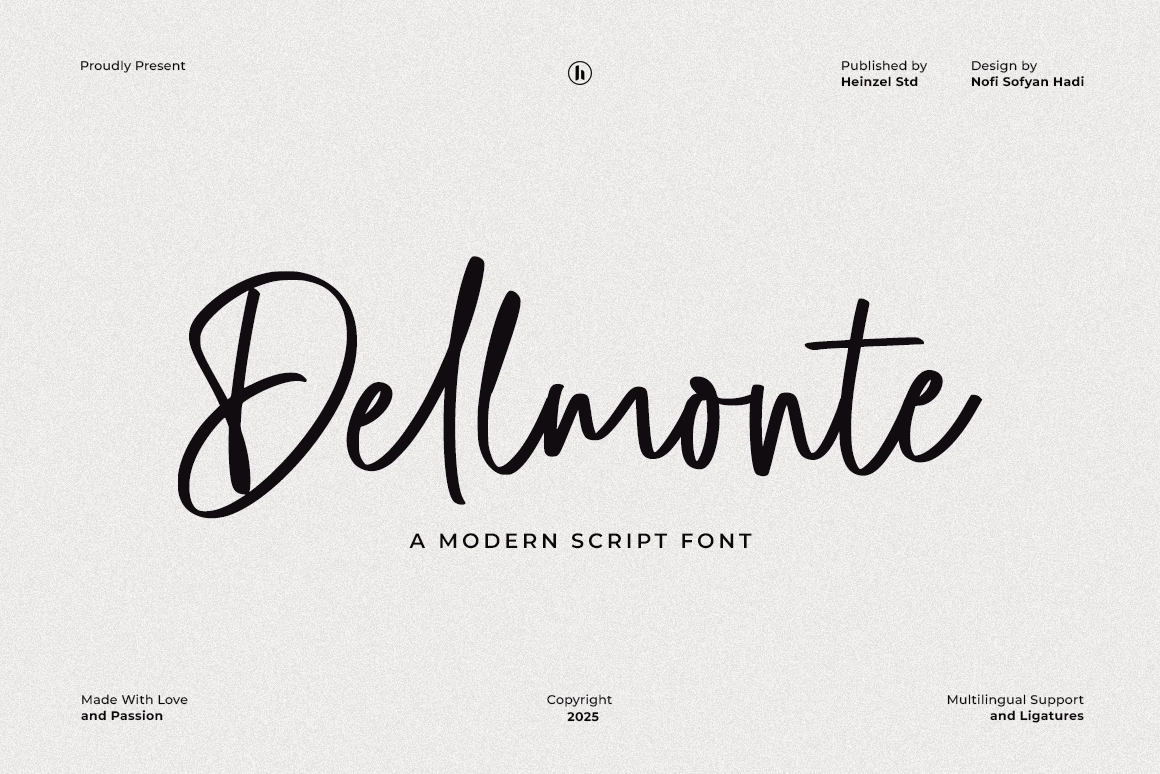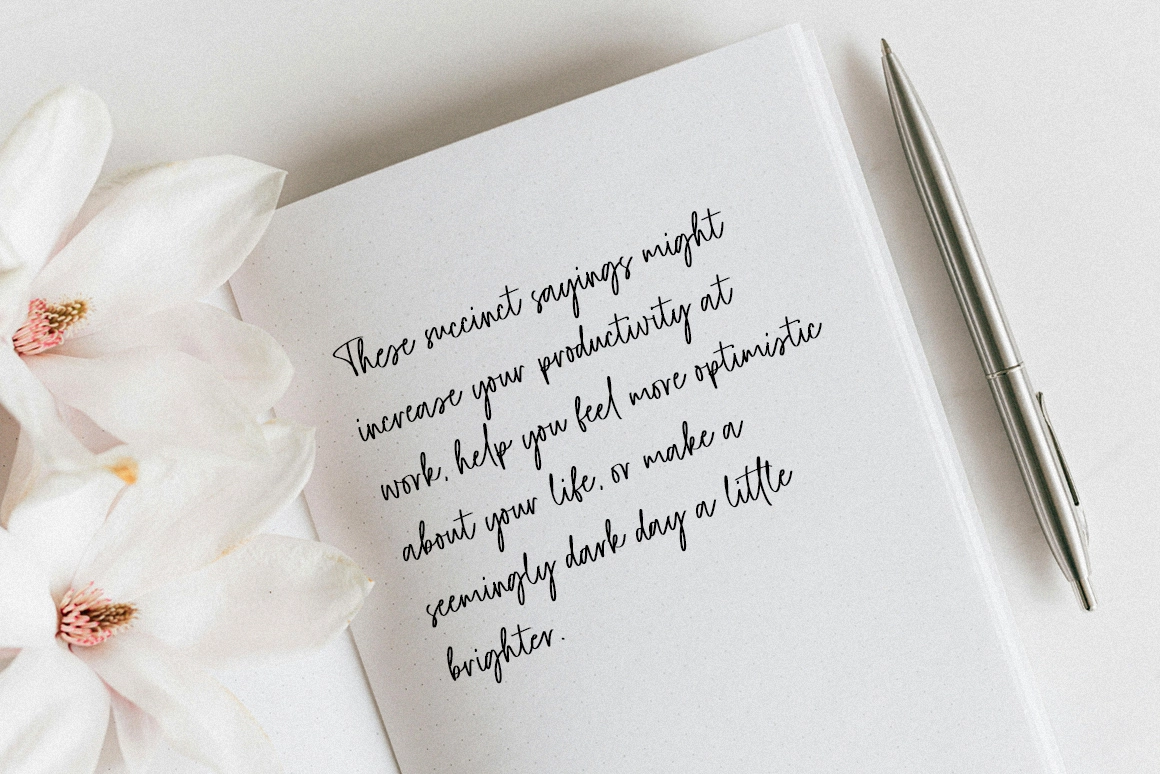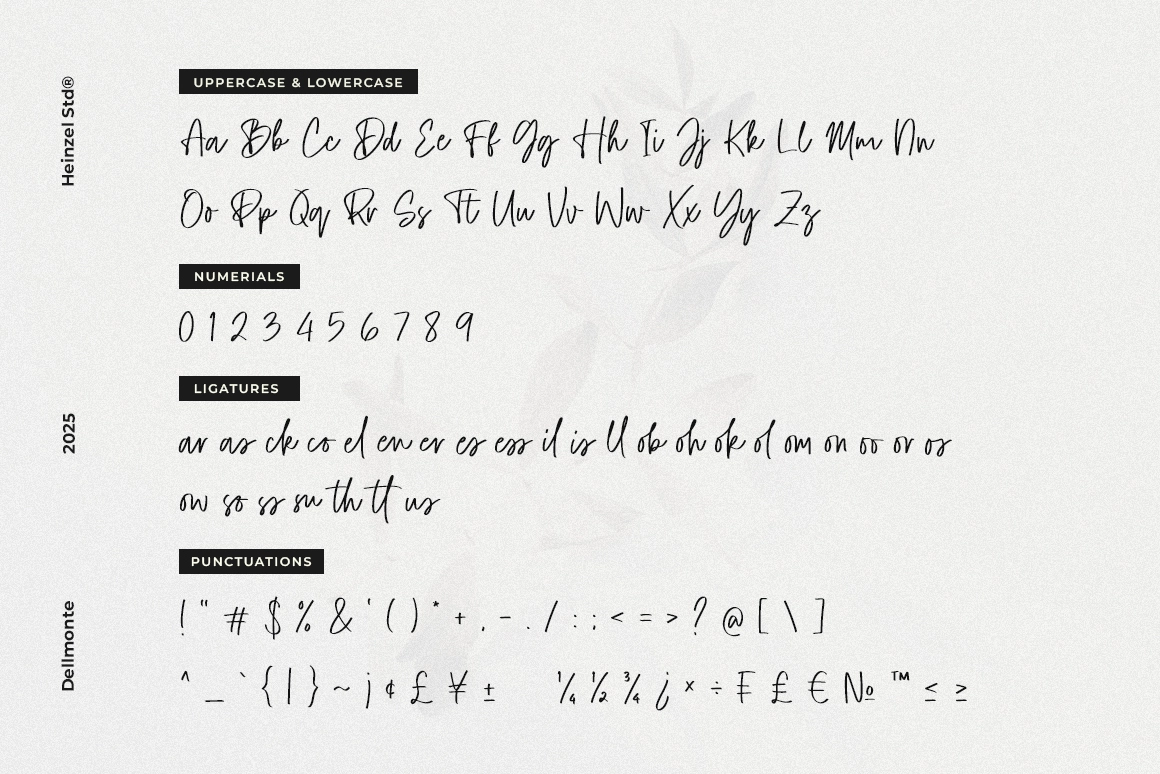
Dellmonte - Handwritten Script Font
Dellmonte runs on the rhythm of a confident pen — loose enough to read as genuinely handwritten, controlled enough to hold a label or logotype together. The letterforms draw from casual connected script, with varying stroke weight, natural baseline bounce, and ink-like terminals that taper into clean exits. An extended ligature set ties common letter pairs into single flowing units, so longer words and names settle into the kind of unbroken line that takes time to get right by hand.
The script works at intimate scale — product labels, greeting card titles, wedding stationery, quote prints — and holds its character at smaller sizes without collapsing into illegibility. Use it for boutique branding, packaging copy, social quote graphics, journal covers, event invitations, blog headers, beauty product labels, and handwritten-style signatures.
• Uppercase & lowercase;
• Numerals, punctuation & symbols;
• Ligatures;